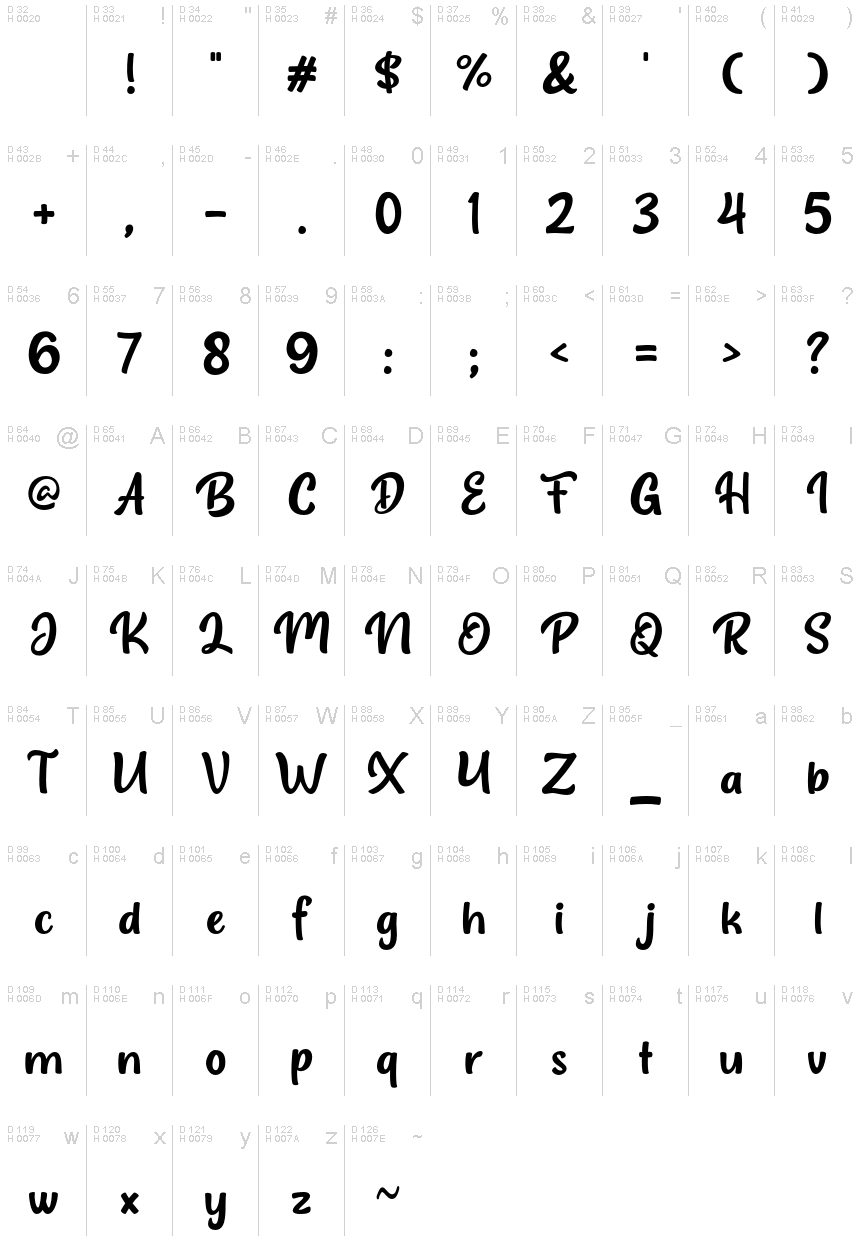
Balegah
Balegah font by MJType is a captivating handwritten typeface that exudes charm and personality. Its bold, flowing strokes create a sense of movement and elegance, making it an eye-catching choice for various design projects. The graceful curves of Balegah provide a personal touch, ideal for creative endeavors that require a human element.
Perfect for branding, logos, invitations, and social media graphics, Balegah's distinctive style enhances readability while adding flair.